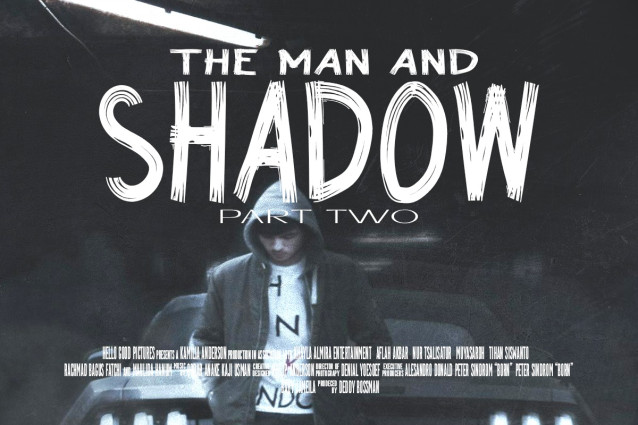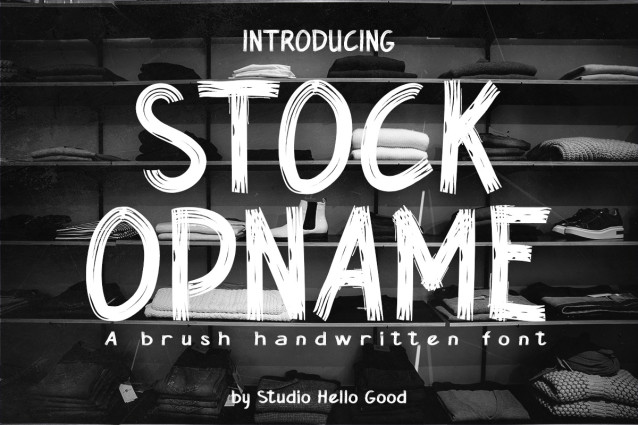
Stock Opname Font
Stock Opname Font a stylish brush handwritten font, exudes a captivating blend of spontaneity and sophistication. Its dynamic strokes and expressive curves infuse a sense of personality and flair. Perfect for projects seeking a distinctive and trendy handwritten touch, Stock Opname adds an artistic charm to any design.